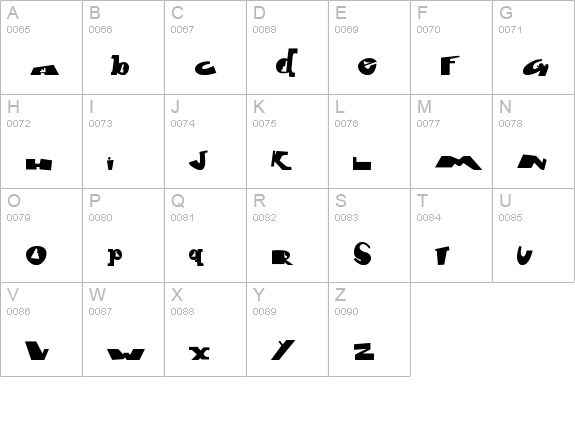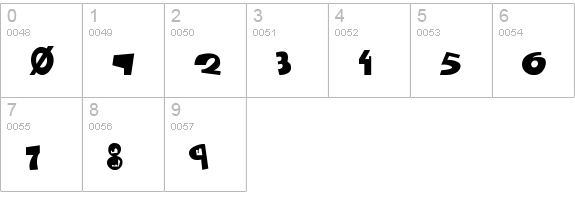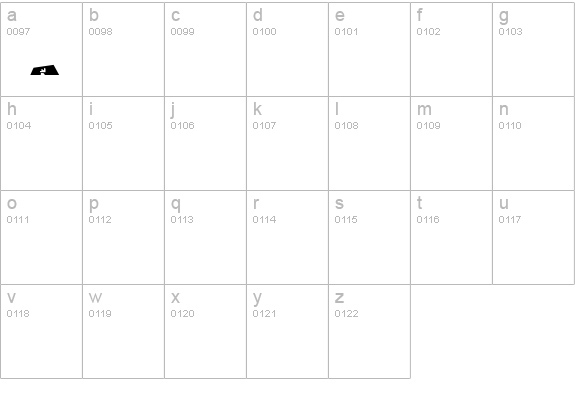
font city Bold is a strong, high-contrast variant in the font typeface family \xE2\x80\x94 well suited to headlines, attention-grabbing titles, and strong calls-to-action.
Font City Bold is a striking and modern typeface that exudes confidence and sophistication. With its bold and impactful letterforms, this font is perfect for making a statement in headlines, logos, and branding materials. The clean lines and strong presence of Font City Bold make it a versatile choice for a wide range of design projects. Best of all, Font City Bold is available for free download at FontsMarket.com, making it easily accessible to designers and creatives looking to add a touch of boldness to their work. Whether you're designing a poster, website, or packaging, Font City Bold is sure to make a lasting impression with its bold and dynamic appearance. Add this impressive font to your collection today and elevate your designs with its bold personality.